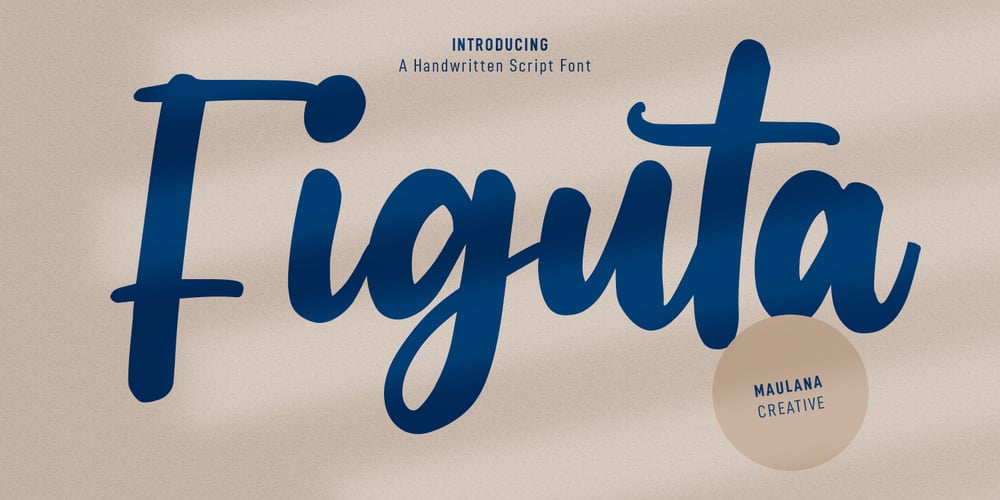
Figuta Font Family was designed by Gilang Maulana and published by Maulana Creative. Figuta contains 1 styles and family package options. Figuta is a modern signature script font. With slanted contrast stroke, fun character. To give you an extra creative work. Figuta font support multilingual more than 100+ language. This font is good for logo design, Social media, Movie Titles, Books Titles, a short text even a long text letter and good for your secondary text font with sans or serif. Make a stunning work with Figuta font. Cheers, Maulana Creative